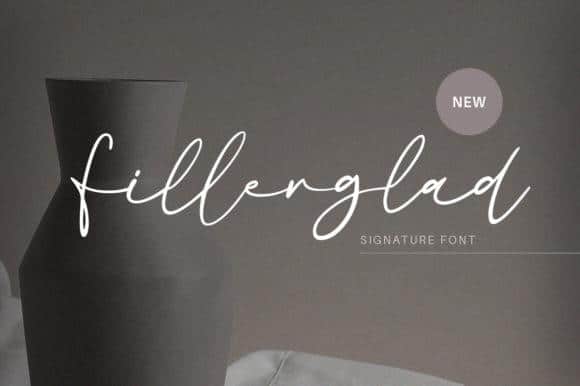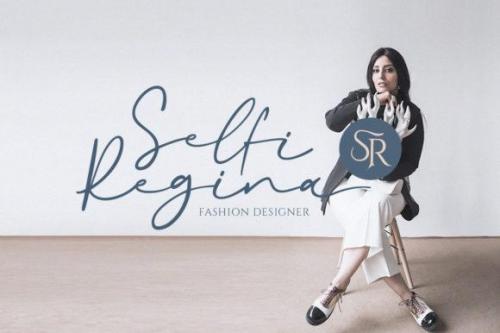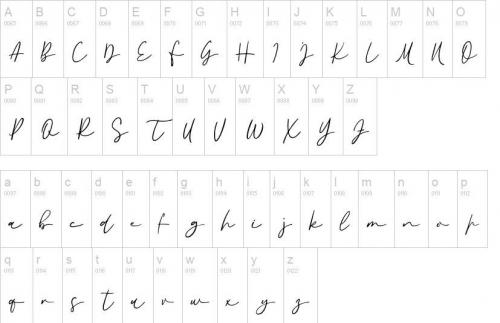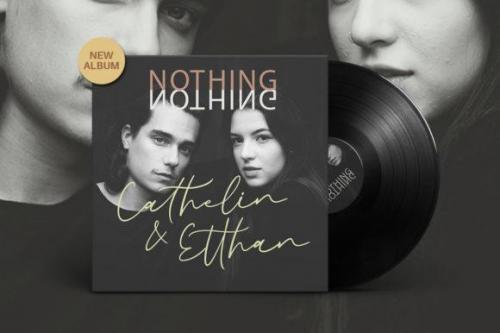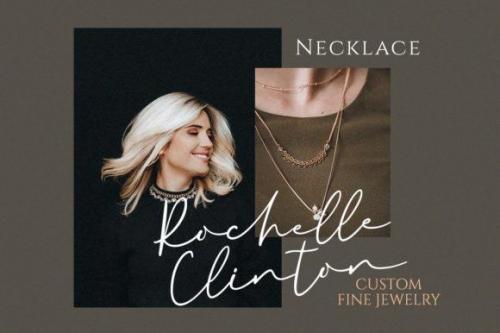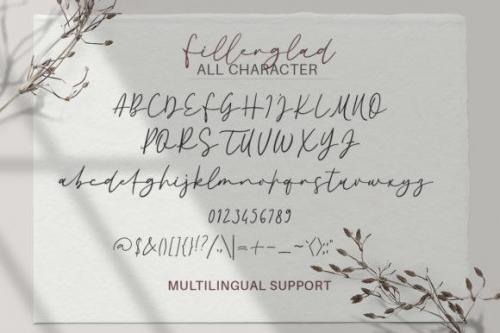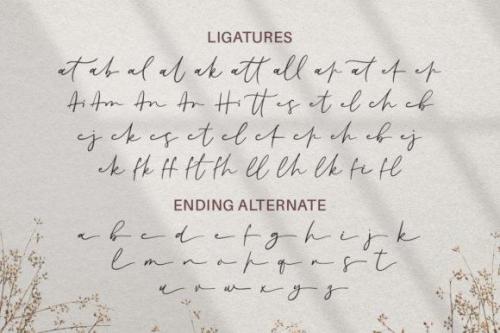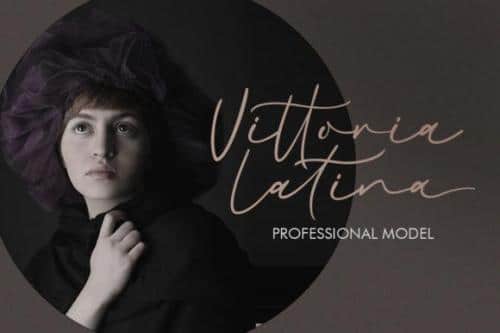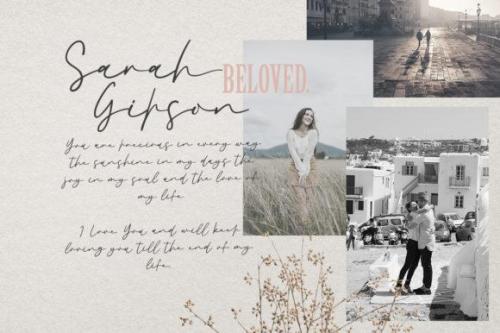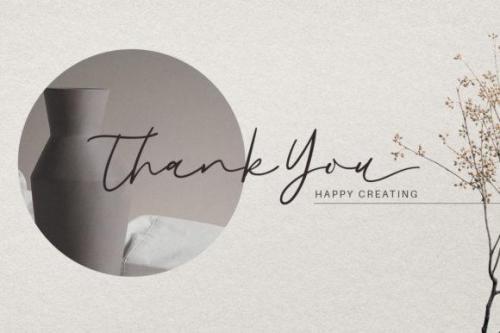
Fillerglad Font
Fillerglad is an elegant and delicate handwritten font. Fall in love with its incredibly versatile style and use it to create gorgeous wedding invitations, beautiful stationary art, eye-catching social media posts, and much more!